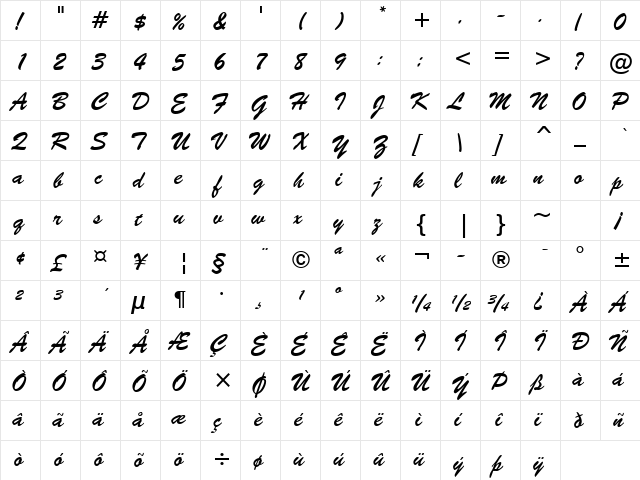
BrushScript BT Regular
Design Context for BrushScript BT Typeface
BrushScript BT flows with the natural rhythm of handwritten lettering, making it ideal for designs that call for warmth and personal expression.
Font Pairing: Combine BrushScript BT with a simple geometric sans for maximum contrast — the tension between flowing curves and clean structure is a classic typographic pairing.
Pro Tip: Pair BrushScript BT with a clean sans-serif for supporting text. The contrast between fluid script and geometric structure creates an elegant typographic hierarchy.